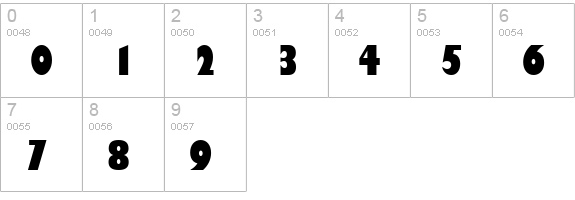
Gill Black Condensed SSi Black Condensed Font Details
Gill Black Condensed SSi Black Condensed is a maximum-weight, dramatic, condensed-width variant in the Gill typeface family \xE2\x80\x94 well suited to maximum-impact headlines, posters, and packaging.
Gill Black Condensed SSi Black Condensed font is a bold and impactful typeface that exudes strength and modernity. With its sleek design and sharp angles, this font is perfect for making a bold statement in any project. Its condensed style allows for efficient use of space while still maintaining readability and character. The best part? This font is freely available to download at FontsMarket.com, making it accessible to all designers and creatives looking to add a touch of sophistication to their work. Whether you're creating a striking poster, eye-catching branding, or a sleek website design, Gill Black Condensed SSi Black Condensed font is sure to make a powerful impact. Download it today and elevate your designs to the next level.